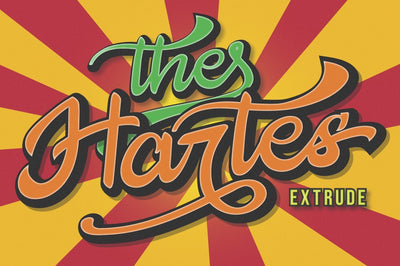
The Hartes
- Full set of extra characters
Say Hello ! to ' The Hartes Retro Script Font' The Hartes is a fun, vintage handwritten font with a bold feel. Funky and dynamic, it will inspire any retro design project! .It was very inspired from the famous retro typography designs in late 60's untill 70's.. which is perfect for flyer,invitations,branding. advertisements, banners, books, business cards, signatures,headings, logos, t-shirt, letterhead, signage, lable, news, posters, badges etc. and others who want a Retro script font.
- Standart ligatures
- Stylistic Alternate
- Stylistic Set SS01-SS05